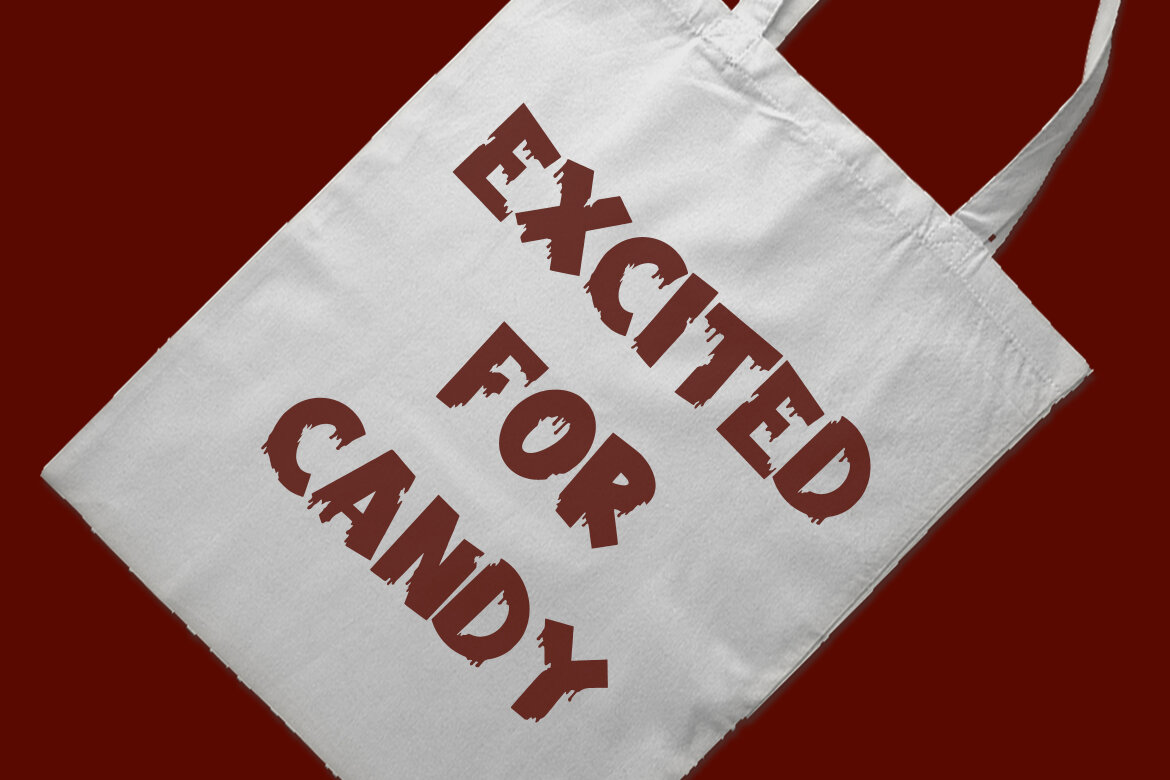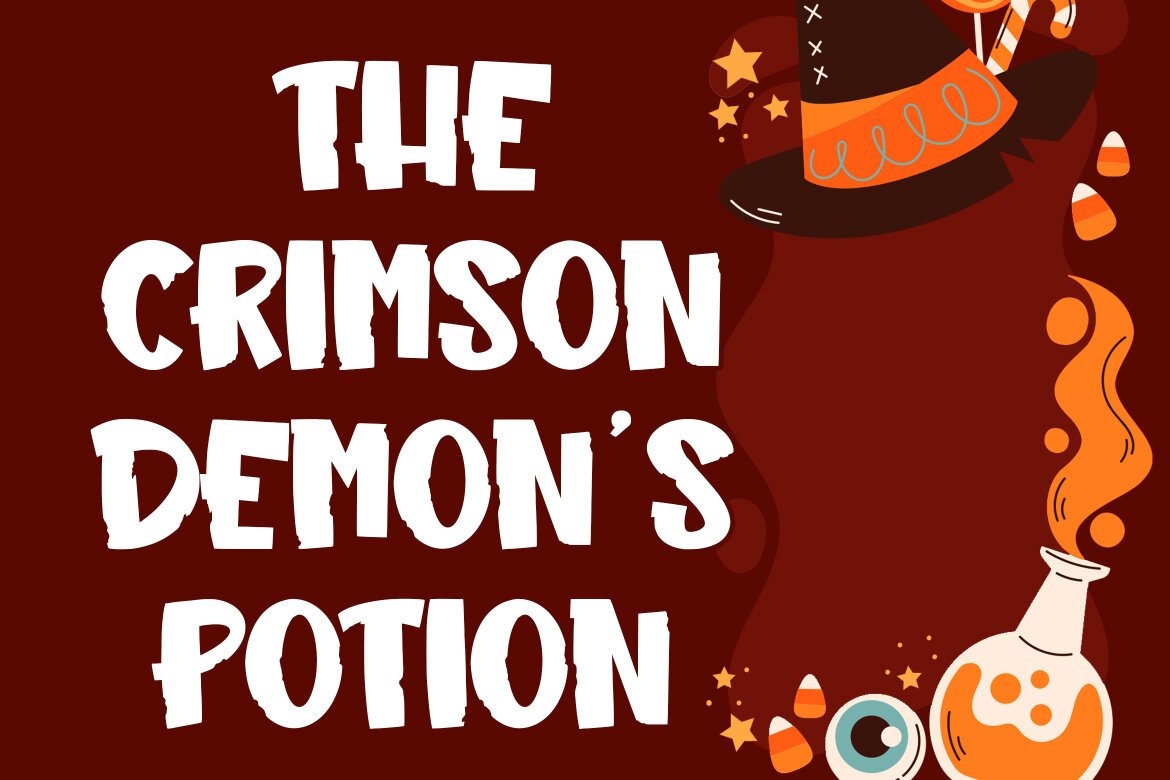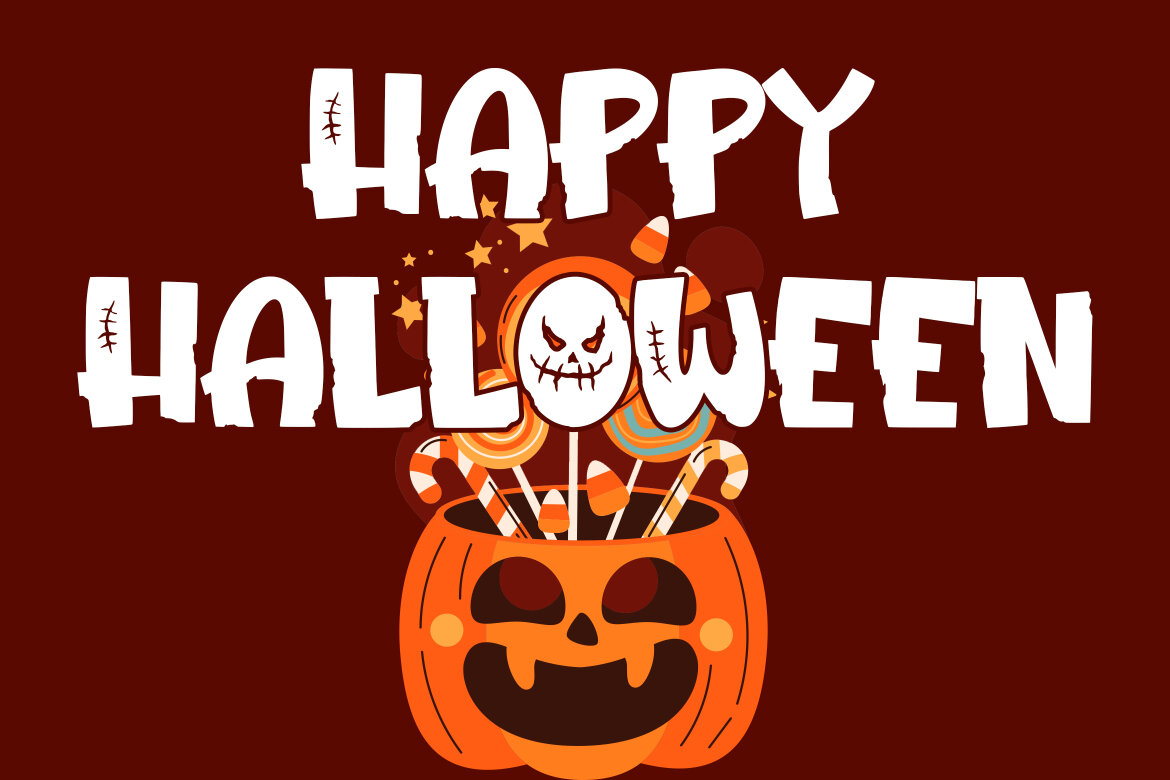
Hello Jack FREE Font
Hello Jack
Hello Jack Halloween Display is a playful, festive typeface inspired by the whimsical and spooky vibes of Halloween. This font features fun, bold characters with subtle Halloween-themed decorations such as pumpkin faces, ghosts, and candy corn integrated into the letterforms. Ideal for children’s Halloween party invitations, seasonal greeting cards, themed posters, and decorative banners, Hello Jack Halloween Display font brings a lighthearted and cheerful touch to any Halloween-related project. Its eye-catching and joyful design ensures that your text stands out with a delightful Halloween spirit.